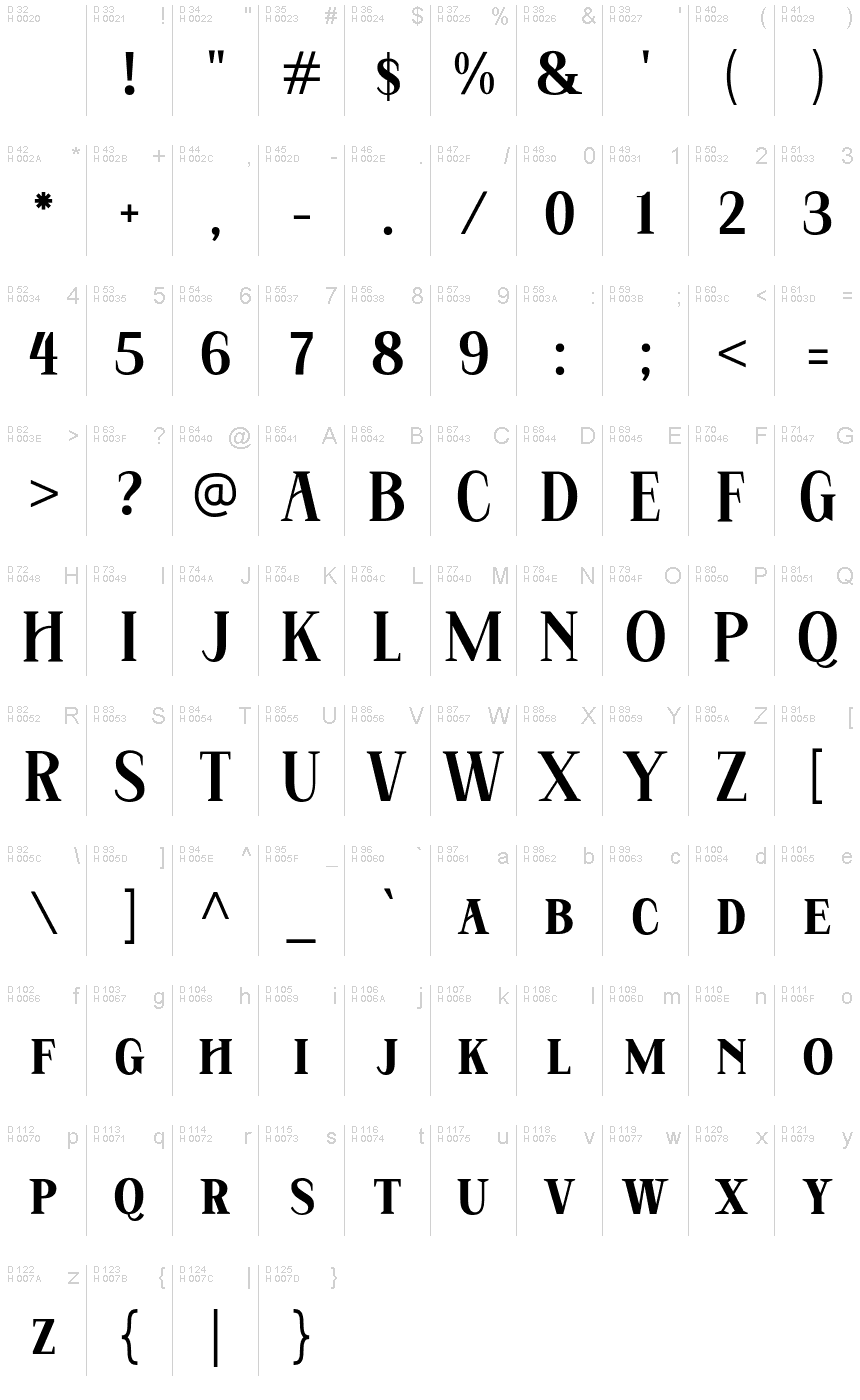
Stranger Doctor Regular
Looking for a bold, attention-grabbing serif font that's perfect for projects that require a touch of sophistication and professionalism? Look no further than Stranger Doctor. Designed by the talented Faqih Fawaji, this font is sure to make a statement wherever it's used. With its bold weight and classic serif style, it's ideal for everything from logos and branding materials to editorial layouts and website headers. Whether you're designing a high-end fashion magazine or creating an elegant wedding invitation suite, Stranger Doctor is the perfect choice for any project where you want to make a lasting impression.